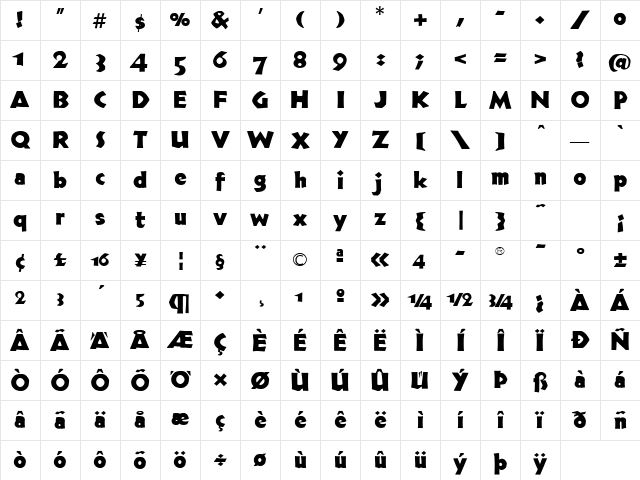
Complete TFNeueneulndSolidOsf Normal glyph index. Displaying only characters natively supported by TFNeueneulndSolidOsf Normal font.
TFNeueneulndSolidOsf is a composed and adaptable typeface that performs quietly and consistently across a wide range of design contexts.